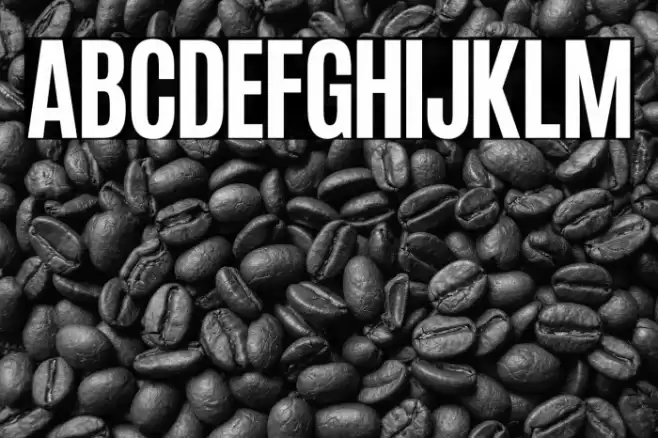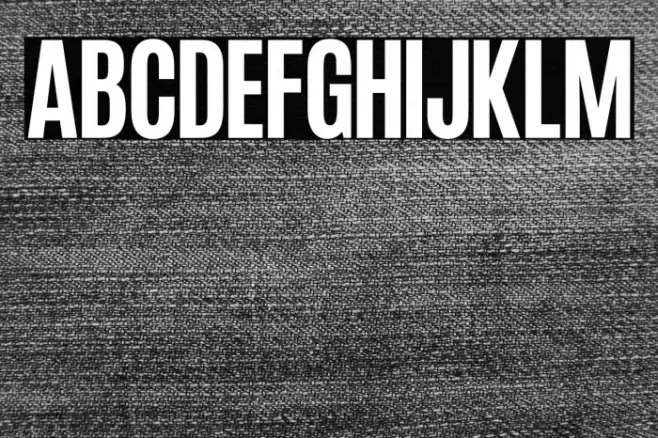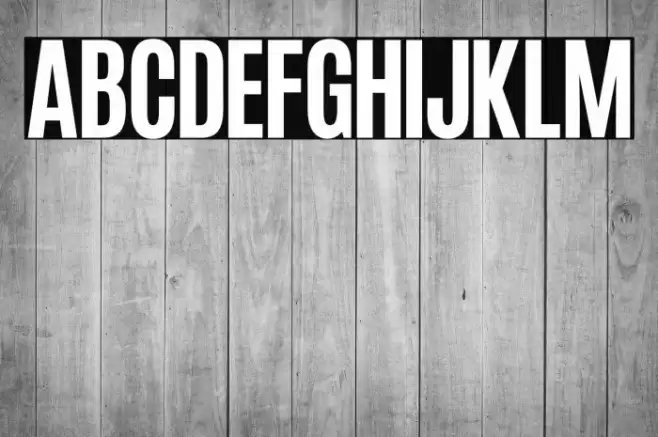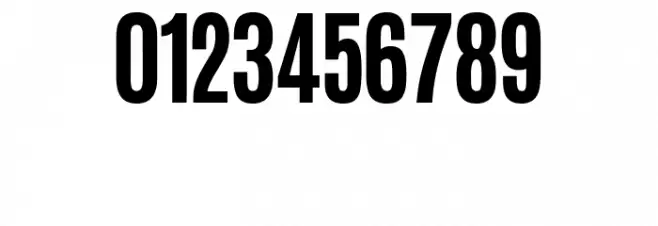
Ioannina Medium Font
Ioannina Medium Description
This font features bold, uppercase letters with a strong and impactful presence. The characters are uniformly wide, creating a sense of stability and confidence. The strokes are thick and consistent, providing a robust and solid appearance. The design is clean and modern, making it suitable for attention-grabbing headlines and titles. The numbers are equally bold, maintaining the same width and weight as the letters, ensuring a cohesive look across all characters.
A bold, modern font with strong, uniform characters ideal for headlines from Uncategorized fonts.
- Font: Ioannina Medium
- Proposed Projects: This font is perfect for projects that require a strong visual impact, such as posters, banners, and advertising materials. It can also be used effectively in branding and logo design where a bold statement is needed.